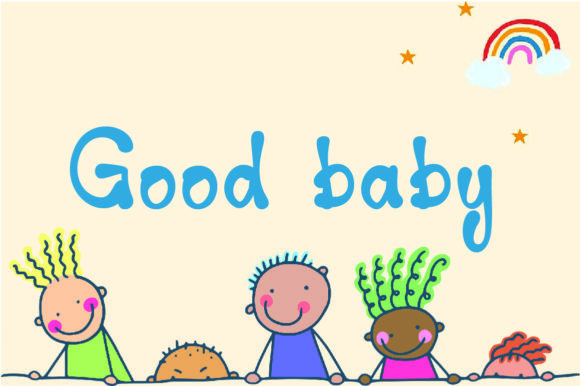
Have you ever stared at a blank page, searching for the perfect font to bring your design to life? It’s that moment of creative frustration when you wish you had a font that could capture the essence of your idea. For designers, finding the right font can be a daunting task, but what if I told you that there’s a font that can make that moment a little less stressful?
Meet Good Baby Font, a simple, quirky and adaptable handwritten font that’s perfect for projects that require a relaxed touch. This charming font is designed to add a personal touch to your designs, making it a go-to choice for creatives who want to convey a sense of approachability and friendliness. Whether you’re designing a logo, a website, or a social media campaign, Good Baby Font is sure to bring a smile to your audience’s faces.
Good Baby Font Key Features
- Font Family: Good Baby Font is a sans-serif font family.
- Font Size and Resolution: Supports font sizes from 6pt to 1000pt and offers high-resolution support up to 300 DPI.
- Unique Characteristics: The Good Baby Font features a clean and modern design with rounded edges and a friendly feel, making it ideal for children’s products, educational materials, and advertising.
- Language Support: Supports multiple languages, including Latin, Cyrillic, and Greek alphabets.
- Kerning and Ligatures: Includes advanced kerning and ligature features for precise typography and a polished appearance.
Good Baby Font Review
Overall, I was excited to dive into the “Good Baby Font” and see what it had to offer. As a designer, I’m always on the lookout for unique and creative fonts that can add a touch of personality to my projects. ✨
- Unique Character Set: The Good Baby Font has a distinctive character set that’s perfect for creating playful and whimsical designs. ✨
- High-Quality Vectors: The font is available in high-quality vector format, making it easy to resize and manipulate without losing any of its charm. ✨
- Easy to Read: Despite its playful nature, the font is surprisingly easy to read, even at smaller font sizes. ✨
- Limited Language Support: Unfortunately, the Good Baby Font only supports a limited range of languages, which may be a limitation for designers working on multilingual projects. ⚠️
- Lack of Bold/Italic Variations: While the font is available in several styles, it’s missing bold and italic variations, which may be a drawback for designers who need more flexibility. ⚠️
Overall, I think the Good Baby Font is a great addition to any designer’s toolkit. While it may have some limitations, its unique character set and high-quality vectors make it a great choice for projects that require a playful touch. Just be sure to keep its limitations in mind when choosing the right font for your project.
Tips for Getting the Most Out of Good Baby Font
Use Good Baby Font for creating playful and whimsical designs, such as children’s party invitations, nursery decor, and baby shower decorations.
Combine Good Baby Font with other playful graphics and elements to create a cohesive and engaging design.
Good Baby Font is ideal for:
Children’s party invitations and decorations
Nursery decor and baby shower decorations
Children’s book illustrations and design
Playful and whimsical branding and marketing materials
Alternatives to Good Baby Font
Playfair Display is a luxurious, elegant serif font ideal for high-end branding, magazine titles, and formal invitations. It features intricate details and flourishes, making it perfect for designers looking to add a touch of sophistication to their designs.
Compared to Good Baby Font, Playfair Display is more formal and luxurious, while Good Baby Font is more playful and casual. Use Playfair Display when you want to convey elegance and refinement.
Pacifico is a beautiful, modern script font that works well for branding, logos, and titles. Its flowing lines and organic feel make it perfect for designers who want to create a relaxed, beachy vibe.